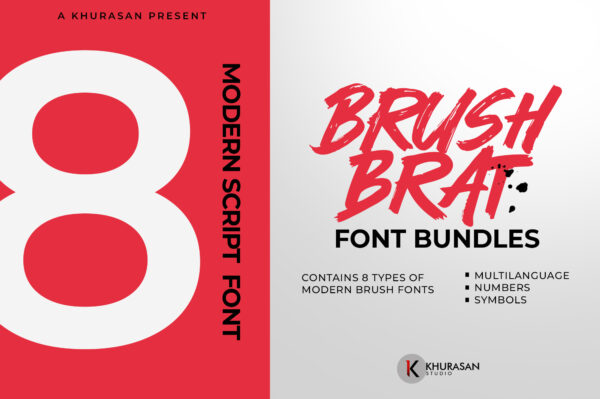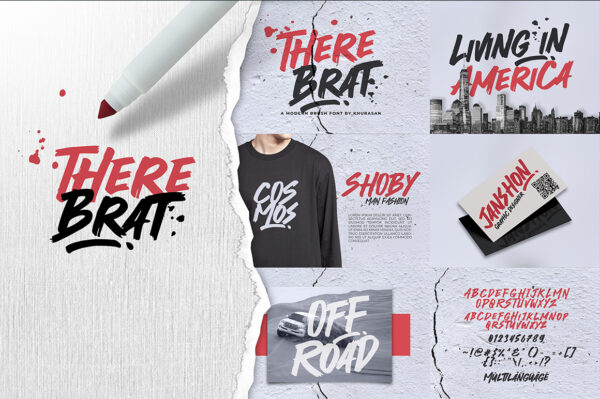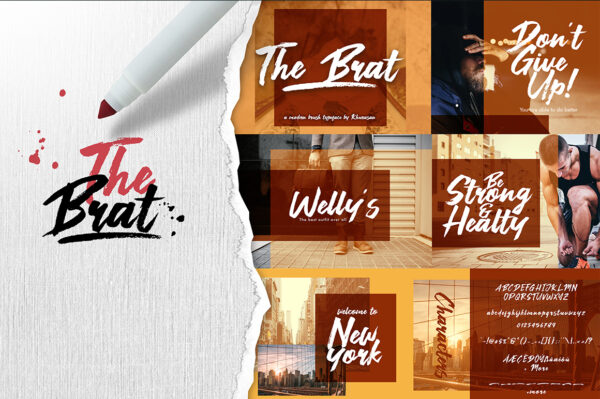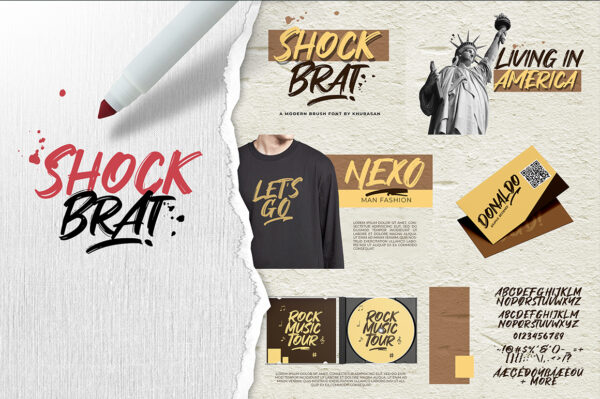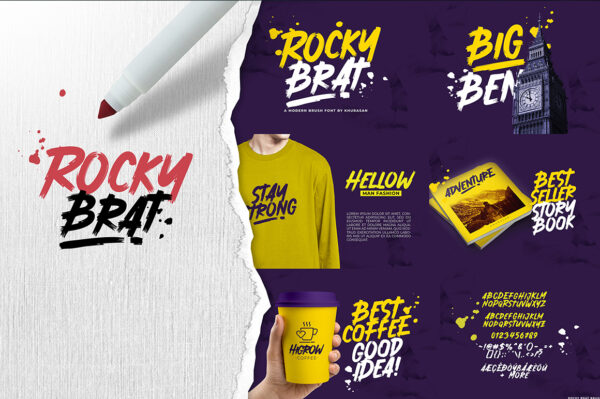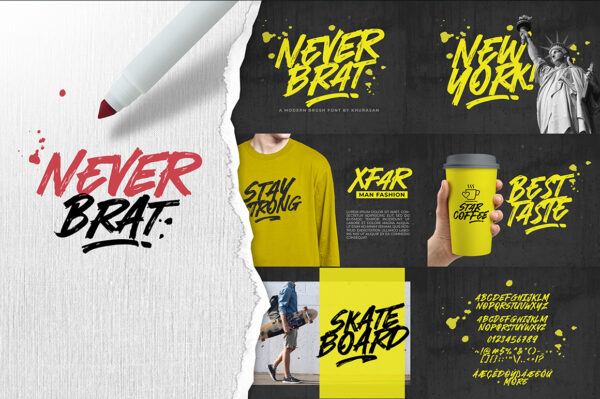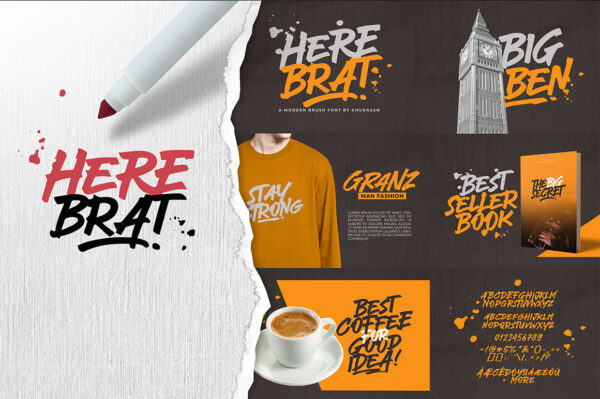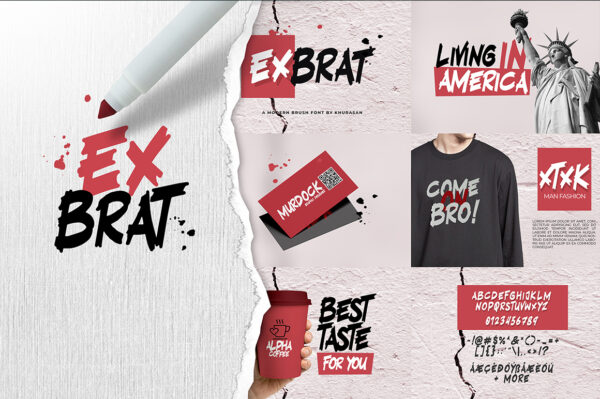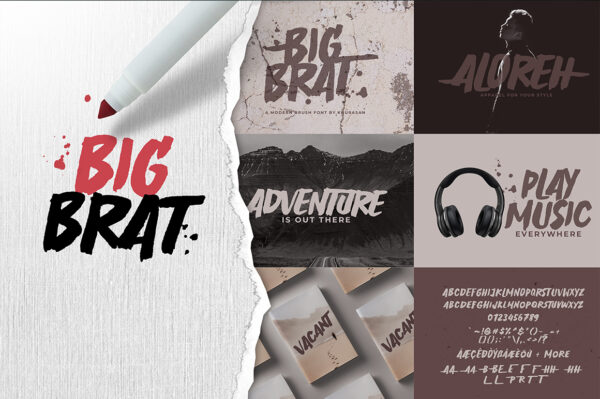
Bigbrat
Exbrat
Here Brat
Never Brat
Rocky Brat
Shock Brat
The Brat
There Brat
The Brush Brat Font Bundle is here! Packed with 8 font modern brush theme only $18. This font bundle contains 8 high quality brush typeface, modern, rough, and stylish fonts with unique variation styles. The Brush Brat Font is perfect for your modern projects design, such as: Movie Poster, Lettering on Cover Books, Album music cover, Logo Brand, and much more.
• Big Brat
• ExBrat
• Here Brat
• Never Brat
• Rocky Brat
• Shock Brat
• The Brat
• There Brat
Brush Brat Font Bundles